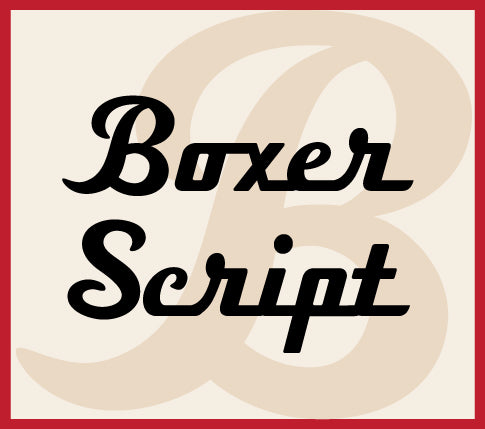
My popular font Boxer Script has now been added to the website! Boxer Script was inspired by the classic streamlined chrome lettering that used to be on vintage cars in the 1940s to the 1960s. It's got that quintessential flowing look that seams to remind me of drive-ins and mean-looking tail fins. Sample of Boxer Script in use as vehicle lettering Jukebox fonts are available in OpenType format and downloadable packages contain both .otf and .ttf versions of the font. They are compatible on both Mac and Windows. All fonts contain basic OpenType features as well as support for Latin-based and...